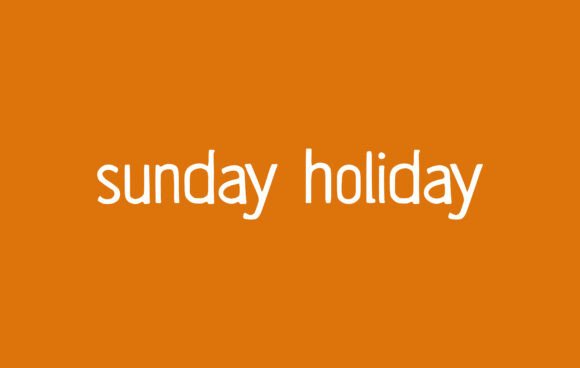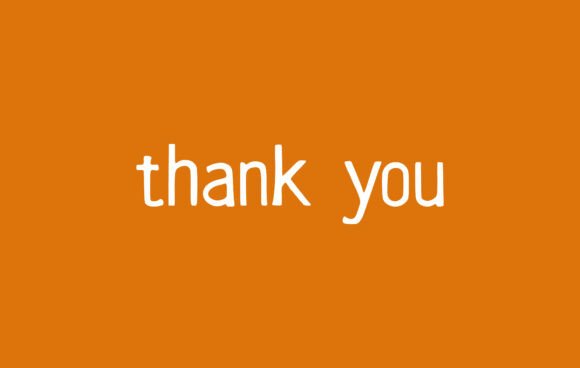
The Magic of Handwritten Fonts: Bringing Your Ideas to Life
Have you ever been brainstorming a creative project, and suddenly, the perfect idea strikes you? The words start flowing, and you can almost see the final product in your mind. But then, the challenge begins: finding the right font to bring your vision to life. That’s where the Hayden Font comes in – a beautiful, authentic handwritten font that’s designed to elevate your creative ideas.
With its romantic touch and legible style, Hayden Font is perfect for everything from magazine headlines to wedding invitations. As a designer, you know how crucial the right font can be in making your designs stand out. Hayden Font is more than just a pretty face – it’s a valuable tool that can help you create truly memorable and effective designs.
Hayden Font Key Features
- Font Family: Hayden is a sans-serif font family.
- Character Set: Supports a wide range of languages, including Latin, Greek, and Cyrillic.
- Font Size: Available in various sizes, including 12pt, 14pt, and 18pt, with an average character width of 7-9 units.
- Resolution: Optimized for screen resolution, with a recommended minimum of 72 dpi for optimal display.
- Unique Characteristics: Hayden features a clean, modern design with a subtle rounded edge, making it suitable for a wide range of applications, from body text to display headings.
Hayden Font Review
As a designer, I’ve had the chance to work with the Hayden font, and I must say it’s a solid addition to any designer’s toolkit. ✨ The font’s clean and modern aesthetic makes it perfect for a wide range of applications, from corporate materials to digital interfaces.
- ✨ The font’s versatility is one of its strongest suits. It can be used in a variety of contexts, from formal to informal, and always looks polished.
- ✨ The font’s legibility is top-notch, making it easy to read even in small sizes.
However, there are a few limitations to keep in mind. ⚠️ The font can feel a bit generic at times, and may not stand out in crowded markets. Additionally, the font’s thin lines can sometimes make it difficult to read in low-light conditions.
Overall, I’d give the Hayden font 4 out of 5 stars. While it may not be the most exciting font out there, its reliability and versatility make it a solid choice for designers looking for a dependable workhorse. With a bit of creativity and imagination, the Hayden font can help bring any project to life.
Hayden Font: A Practical Application Guide
Tips for Getting the Most Out of Hayden Font
Here are some tips for getting the most out of Hayden Font:
- Use Hayden Font for headings and titles to create a clean and modern look.
- Combine Hayden Font with other fonts to create a unique and stylish design.
Here are some common use cases for Hayden Font:
- Alternatives to Hayden Font
Open Sans is a clean and modern sans-serif font, perfect for body text. It’s highly legible and works well in digital products. When to use: Use Open Sans for body text in digital products, apps, and websites. It’s a great alternative to Hayden Font when you need a clean and simple font.
Comparison: Open Sans is more modern and clean than Hayden Font, but lacks the elegance and sophistication of Hayden Font.
Merriweather is a classic serif font, perfect for headings and body text. It’s elegant and sophisticated, making it ideal for print and digital products. When to use: Use Merriweather for headings and body text in print and digital products where you want to convey a sense of elegance and sophistication. It’s a great alternative to Hayden Font when you need a classic and timeless font.
Comparison: Merriweather is more elegant and sophisticated than Hayden Font, but may not be as modern and clean.
Montserrat is a geometric sans-serif font, perfect for headings and body text. It’s modern and clean, making it ideal for digital products and urban environments. When to use: Use Montserrat for headings and body text in digital products, apps, and websites where you want to convey a sense of modernity and urbanity. It’s a great alternative to Hayden Font when you need a modern and edgy font.
Comparison: Montserrat is more modern and edgy than Hayden Font, but may not be as elegant and sophisticated.
Yes, the Hayden Font is optimized for digital use and is suitable for web and mobile applications. It is designed to be highly legible on various screen sizes and resolutions, making it an excellent choice for digital interfaces.
What is the font size and spacing recommendation for the Hayden Font?
For optimal readability, we recommend using the Hayden Font at a font size of 14px or larger for body text. Additionally, a line height of 1.5 or 2 times the font size is recommended to ensure comfortable reading and to avoid text overlap.